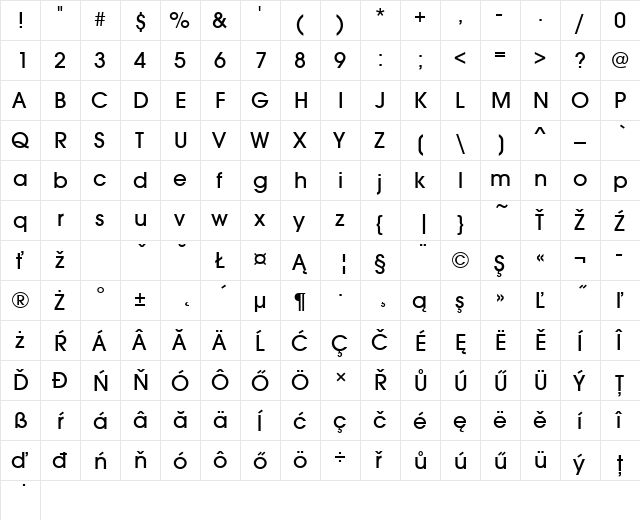
AvantGarGotItcTEEMed Regular
Design Context for AvantGarGotItcTEEMed Typeface
AvantGarGotItcTEEMed takes a measured approach to typography — its balanced proportions and neutral character make it a reliable workhorse for both digital and print work.